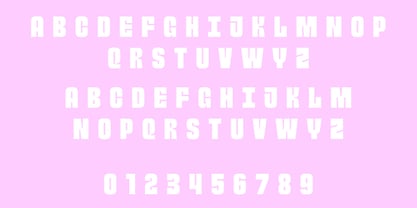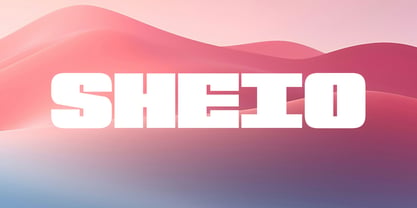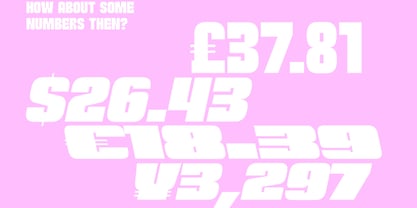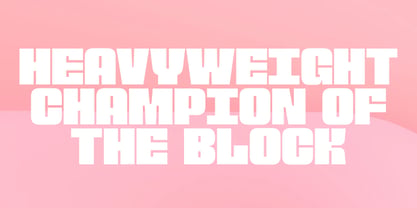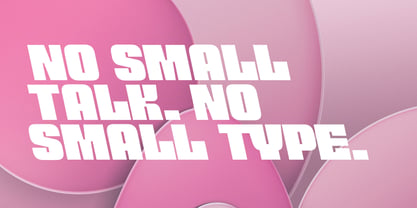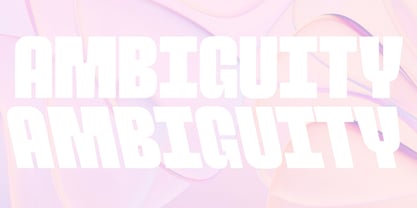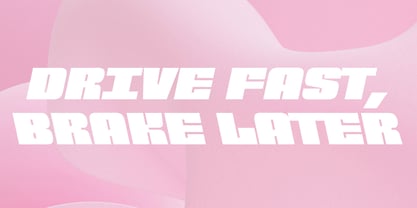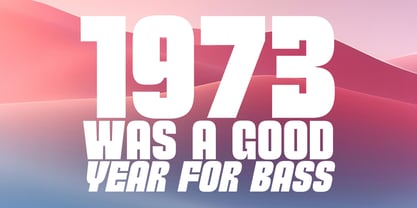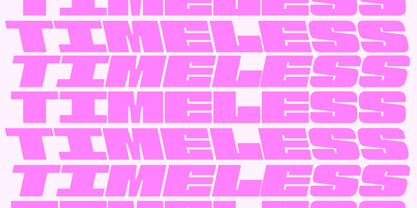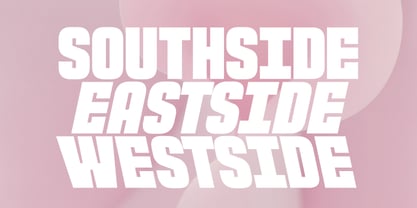
Sheio
Die Schriftfamilie Sheio wurde von João Symington entworfen und von JAM Type Design veröffentlicht. Sheio enthält 15 Stile und Familienpaketoptionen. Mehr über diese Familie
Sheio is a unicase display family for designers who don't want their type to whisper. Five weights — One, Two, Three, Four, Five — climb from thin to black, but the lightest cut still pulls its own weight. This is a family that lives on the heavy end of the spectrum and stays there.
Every weight ships in three styles: an upright, a forward-leaning Italic, and a back-leaning Reclined. That last one is rare. It gives layouts a counter-rhythm most type families can't offer — pair an italic word with a reclined word and a line of text starts to swing.
The drawing is wide, squared, and confident. Terminals are cut blunt. Apertures are tight. Numerals are condensed and rhythmic — the slashed 7, the stylized 2, and the chunky horizontal cut through the B and 8 are the kind of details that turn a wordmark into a logo. Diacritics are positioned correctly across full Latin-1, so it travels: ÀÁÂÃÄÅ, ÇÈÉÊË, ÑÖØÜß, ŒŴŶŸ.
Sheio was built for posters, packaging, album covers, sports lettering, streetwear graphics, festival flyers, arcade UI, and any place a single word needs to do the work of an entire layout. Set it big. Set it loud. Set it sideways. Sheio handles all three.